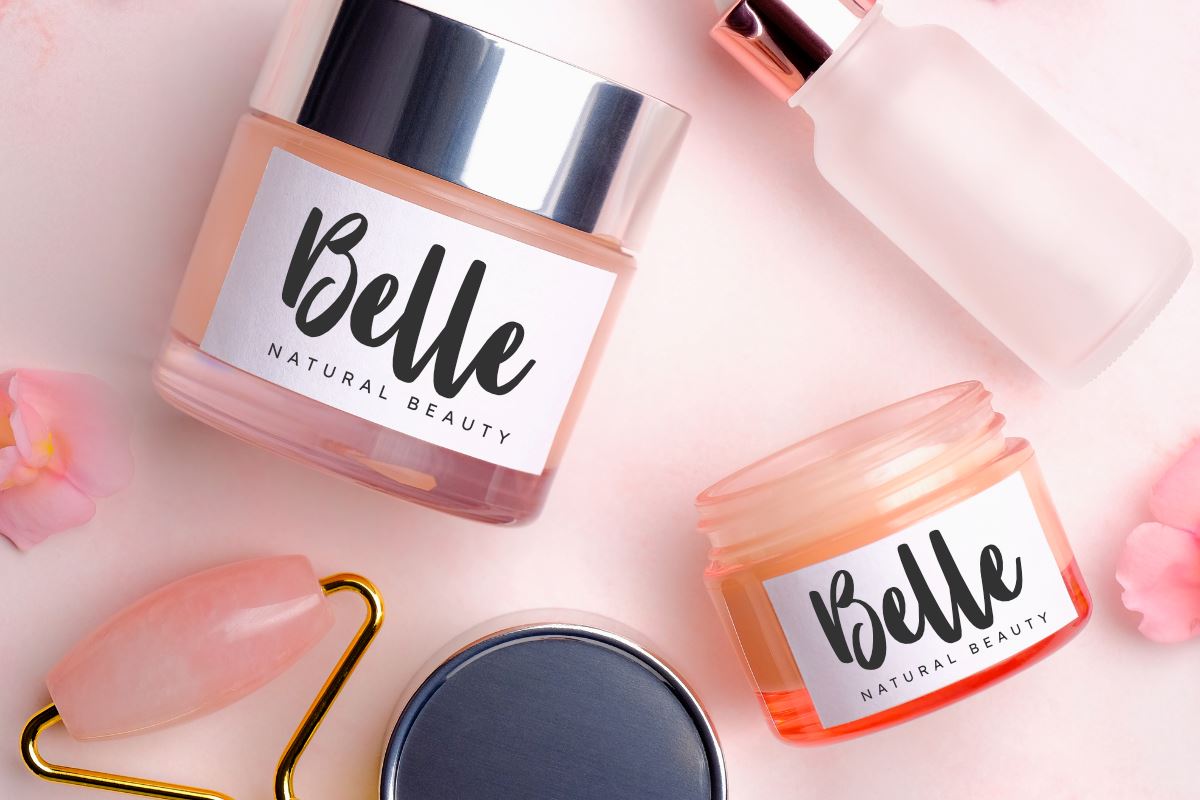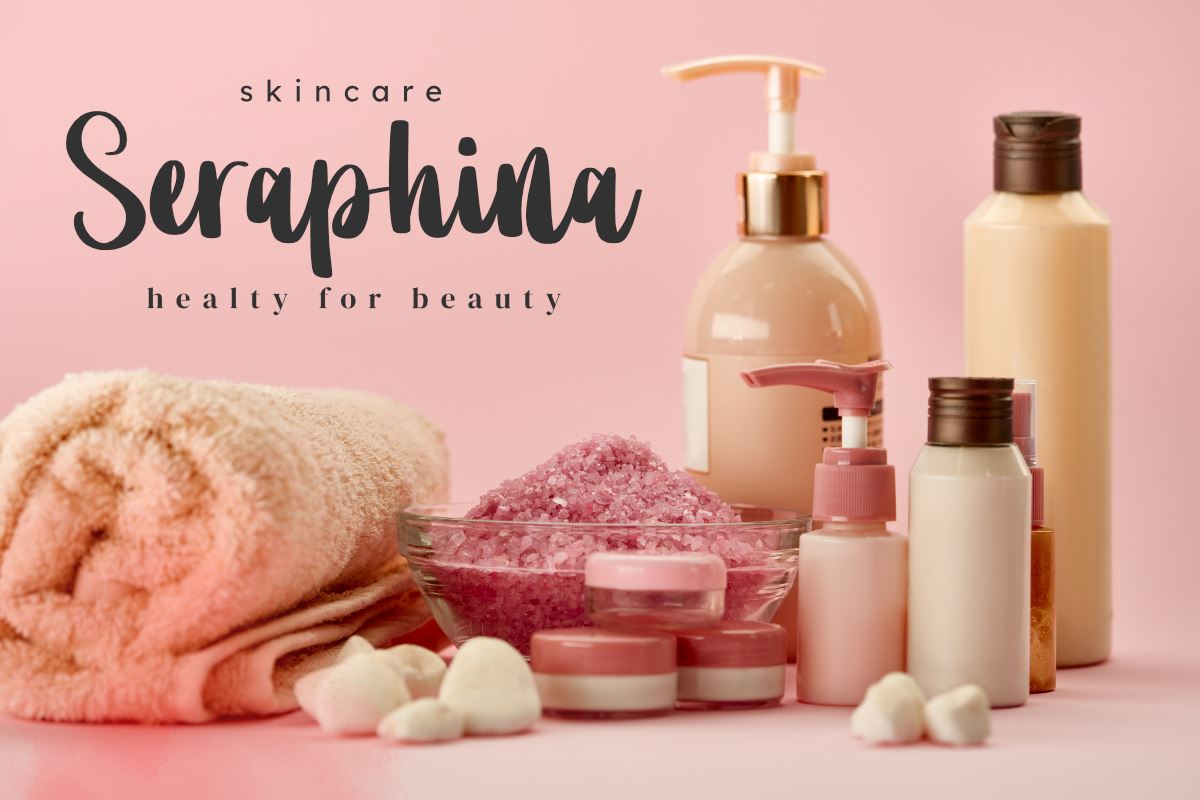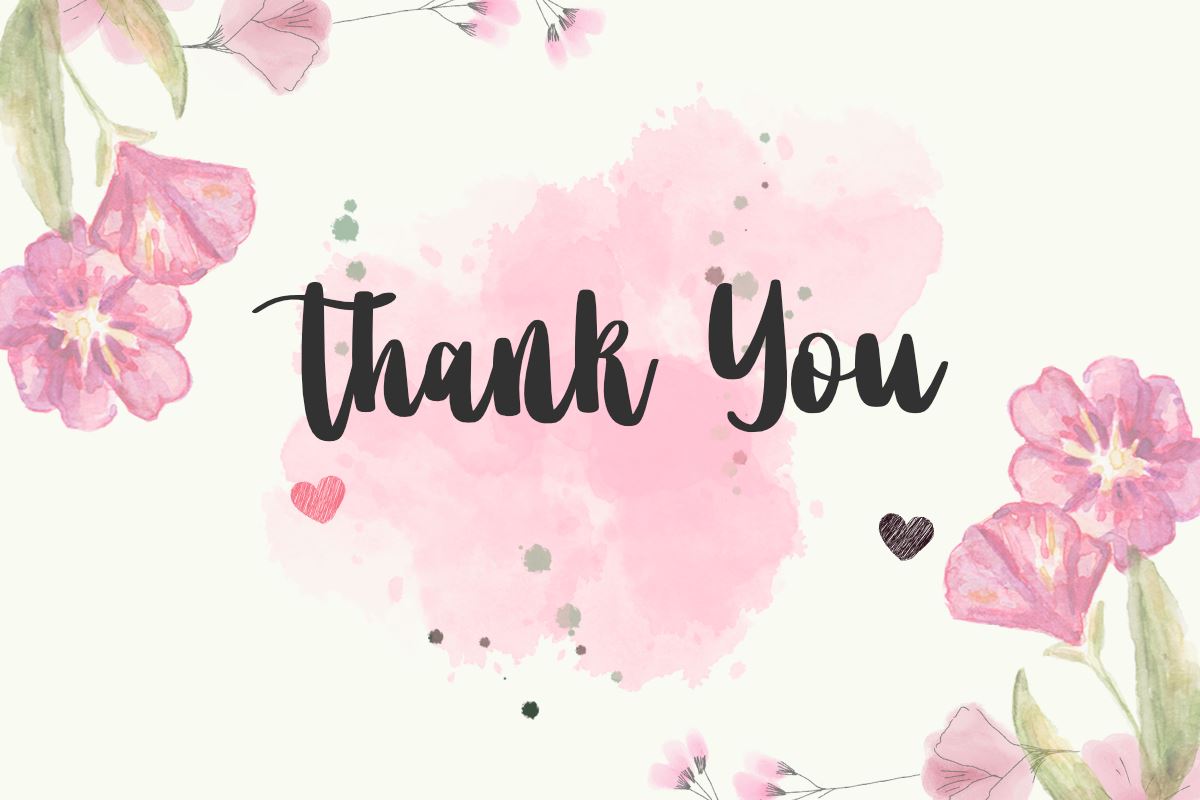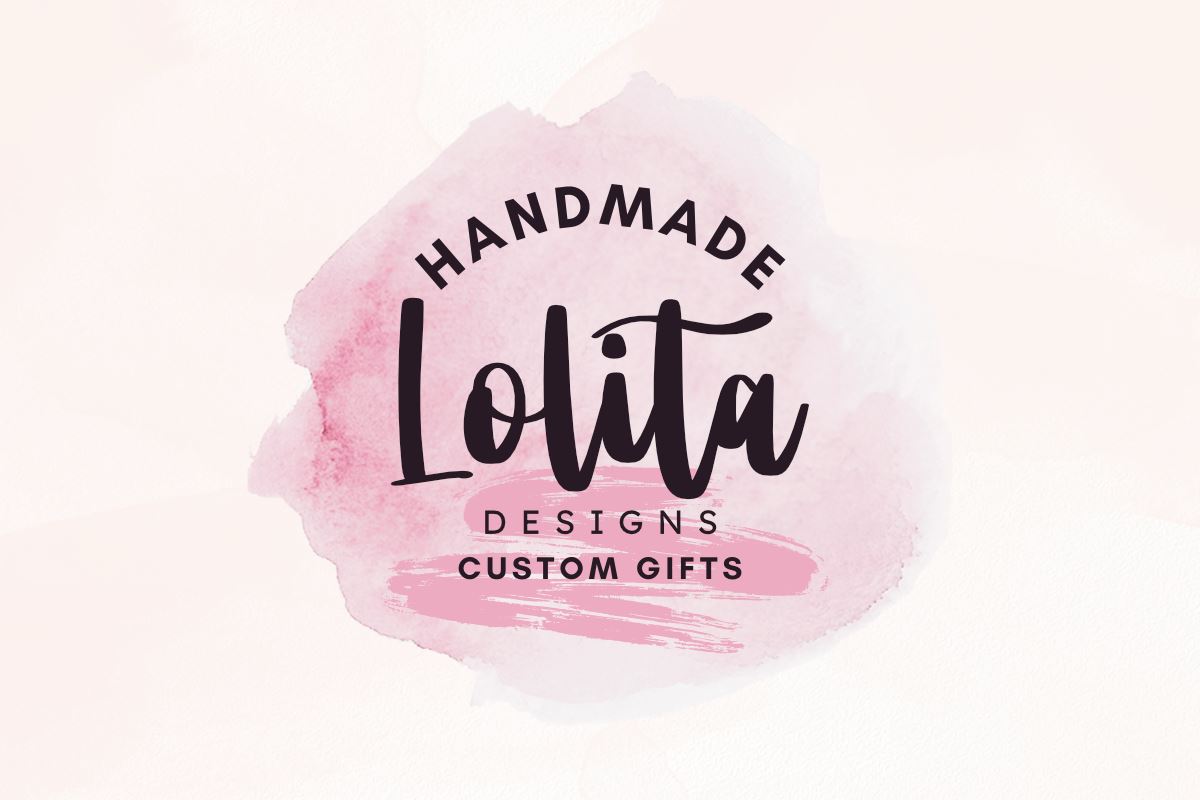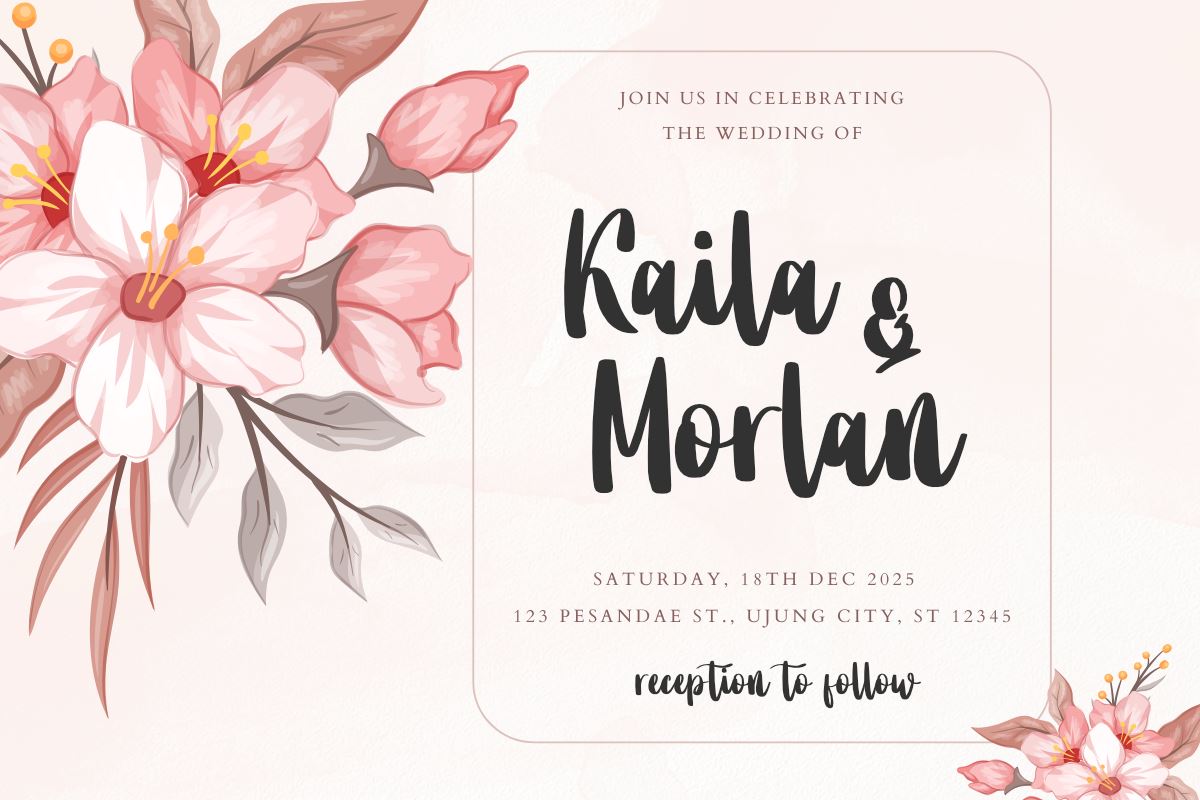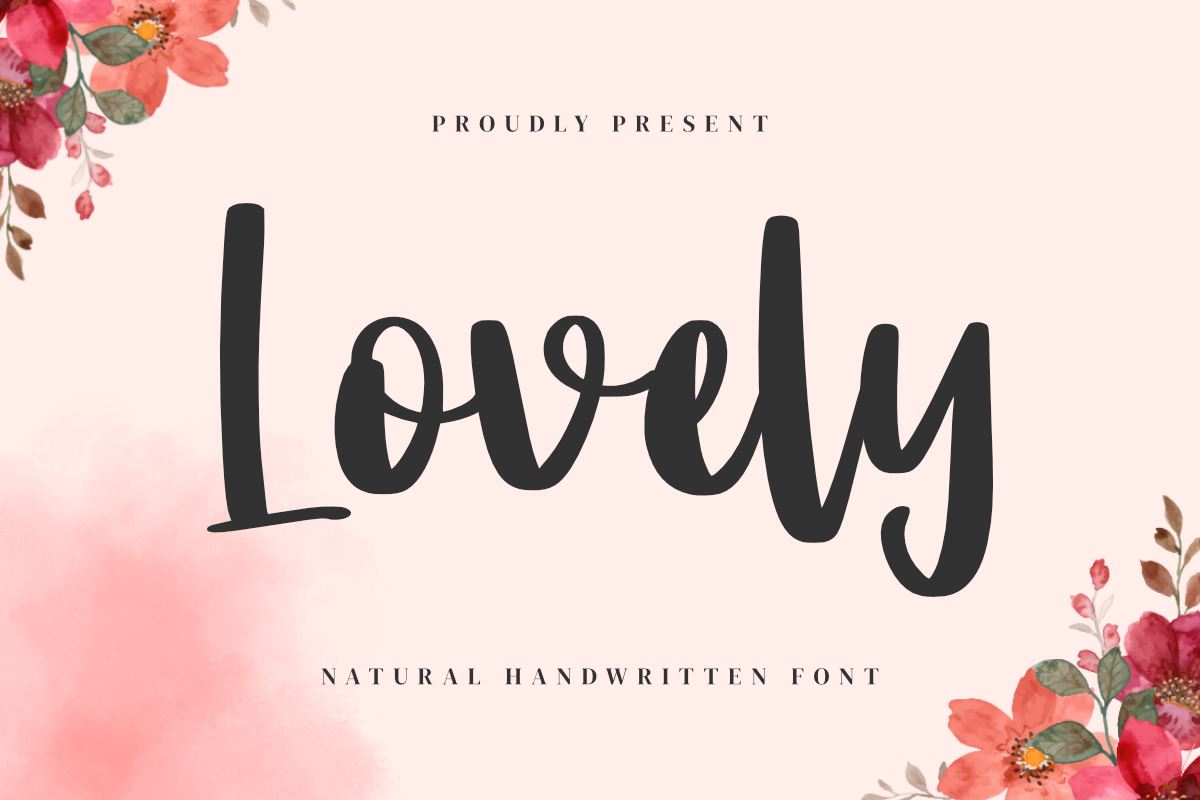
Lovely – Love Handwritten Font
About Lovely – Love Handwritten Font
Lovely is a beautiful fancy handwritten script font. A font with a touch of spoiled and elegant calligraphy. A font inspired by wedding invitation design typography and beauty posters. This font is perfect for Valentine’s, Wedding, Beauty, and Branding purposes. This font is also perfect for crafts such as cricut, stickers, labels, mugs, quotes, sublimation, bx, embroidery, wall art, t-shirts, hoodies, children’s books, teachers, and many other creative ideas. This font is also perfect for small business branding purposes.